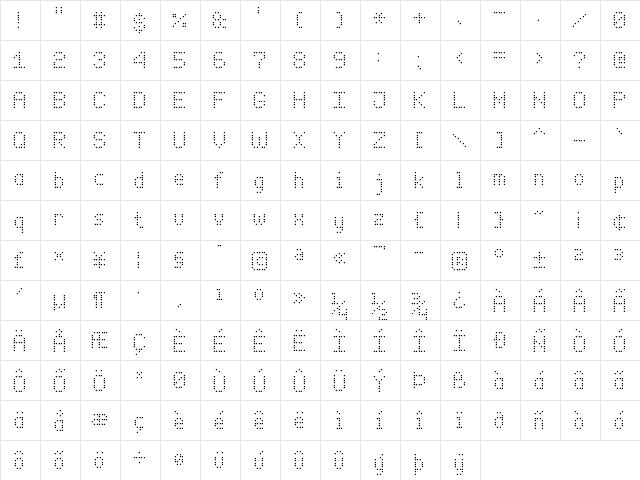
Enhanced Dot Digital-7 Regular
| Foundry | Style-7 |
| Designer | Sizenko Alexander |
Design Context for Enhanced Dot Digital-7 Typeface
Enhanced Dot Digital-7 has a distinctly futuristic character, with geometric precision and clean angles that feel at home in technology, gaming, and sci-fi contexts.